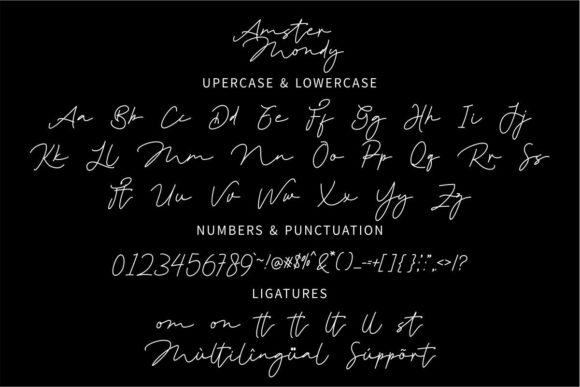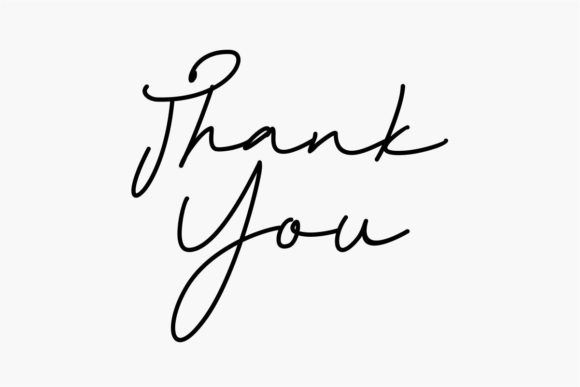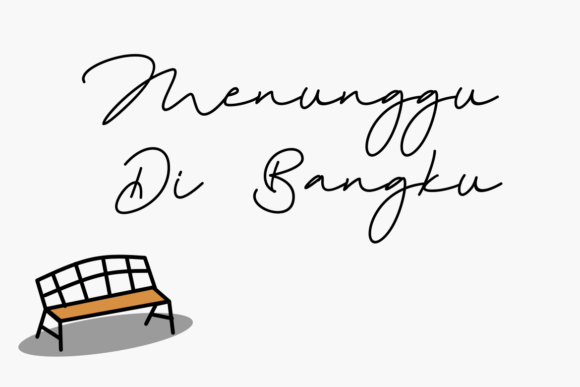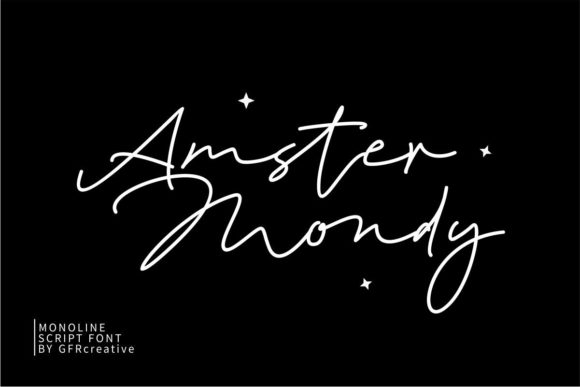
Introducing Amster Mondy Font: The Playful Script Font to Elevate Your Designs
Are you tired of using the same old fonts in your designs? Look no further! Amster Mondy Font is a charming script font that is sure to add a touch of whimsy and personality to your creative projects. With its playful characters that seem to dance along the baseline, Amster Mondy is the perfect addition to your font collection.
What Makes Amster Mondy Font So Special?
Amster Mondy Font is a lovely script font that boasts a range of charming features that set it apart from other fonts. Here are just a few reasons why you’ll love working with Amster Mondy:
• Playful Characters: Each character in Amster Mondy Font has been carefully crafted to be playful and fun, with a sense of movement and energy.
• Dancing Baseline: The characters in Amster Mondy seem to dance along the baseline, giving your text a lively and dynamic feel.
• Charming Ligatures: Amster Mondy Font features a range of charming ligatures that add an extra touch of personality to your text.
• Highly Versatile: Whether you’re working on a branding project, a craft project, or a digital design, Amster Mondy Font is the perfect choice.
Font Name Amster Mondy Font
Author GFRcreative